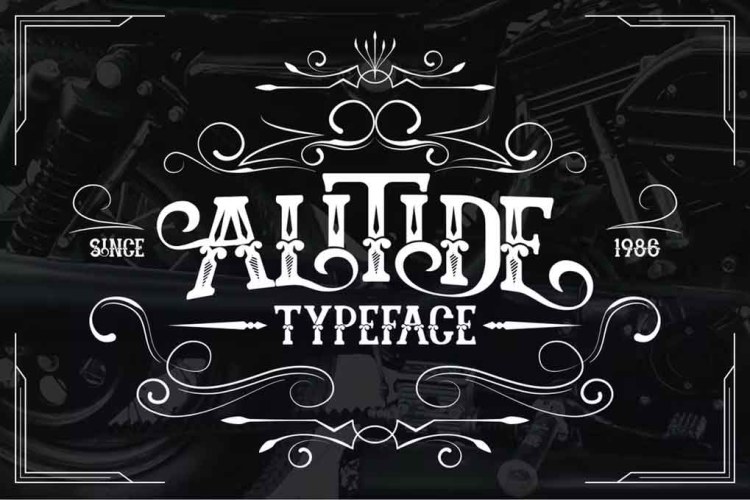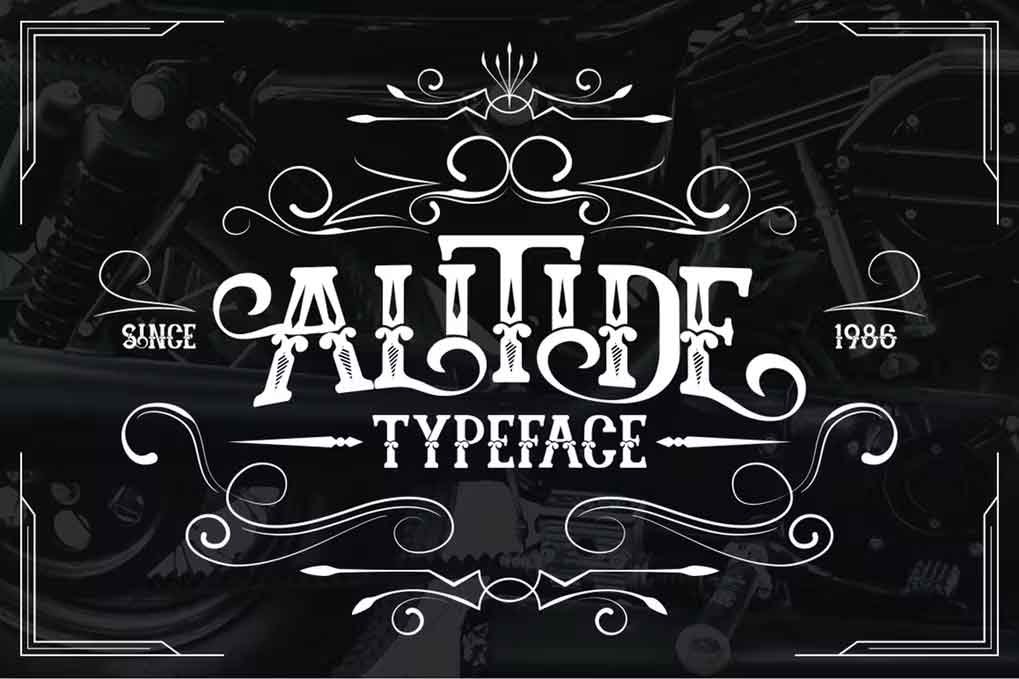
ALITIDE Typeface Font
Where ALITIDE Typeface Font works best
Reports, white papers and book interiors hold the eye longer when the text face has real serifs; ALITIDE Typeface Font keeps that rhythm without looking old-fashioned.
Food, spirits and cosmetics brands lean on serif wordmarks to suggest age and care. ALITIDE Typeface Font gives that signal at wordmark size.
Set ALITIDE Typeface Font for the body of an award or a diploma and keep the recipient name in a script; the pairing is what makes a document feel official.
What kind of work does ALITIDE Typeface Font suit?
It sits in the Serif Fonts group and reads as branding, display, modern, rustic. That makes it a candidate wherever those qualities help: headings, packaging, social graphics and brand work. Set it at the size you plan to use before deciding.